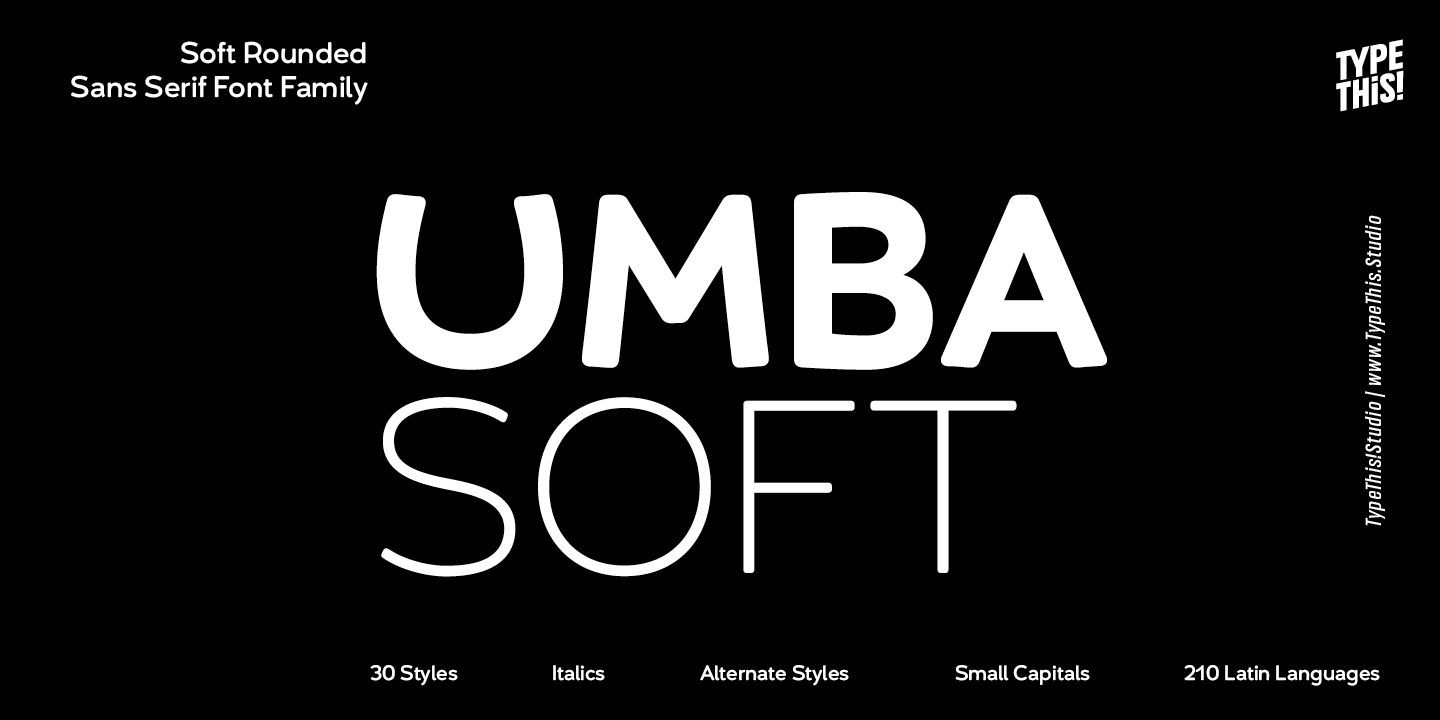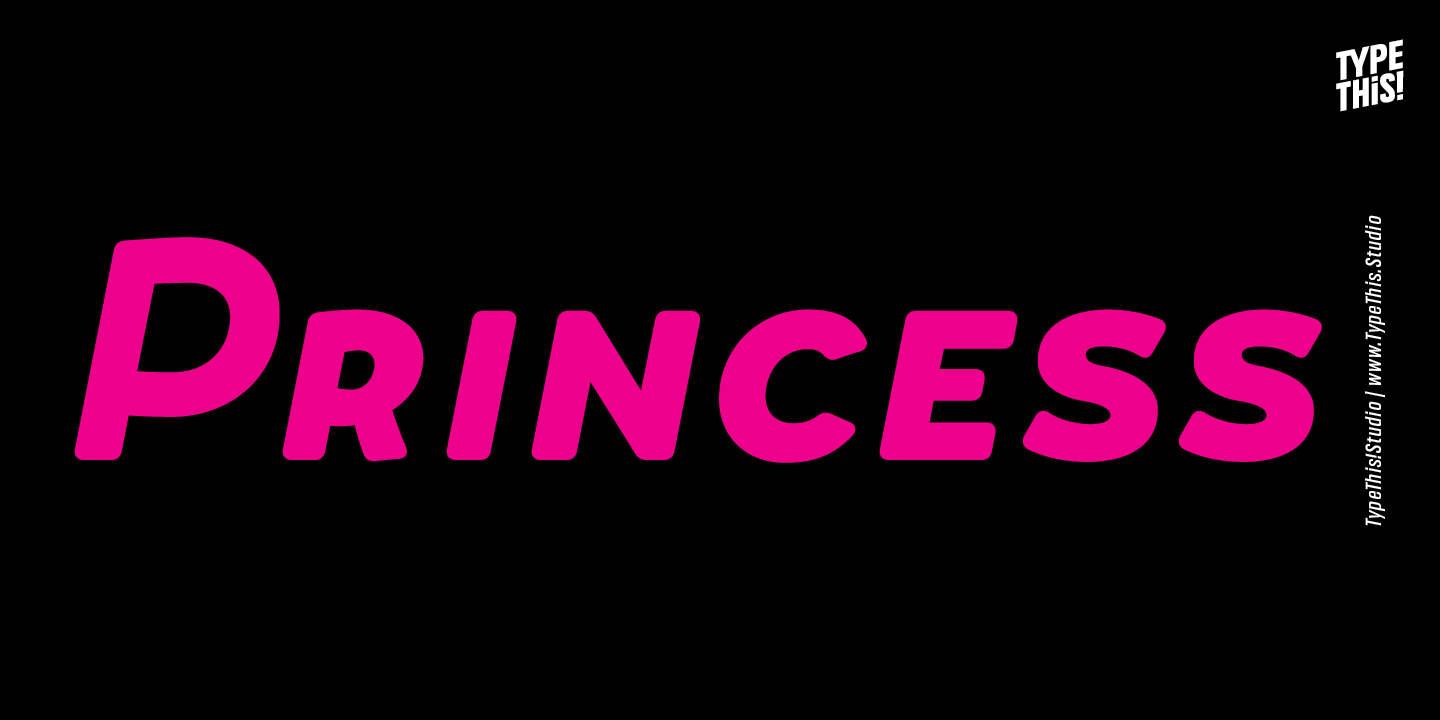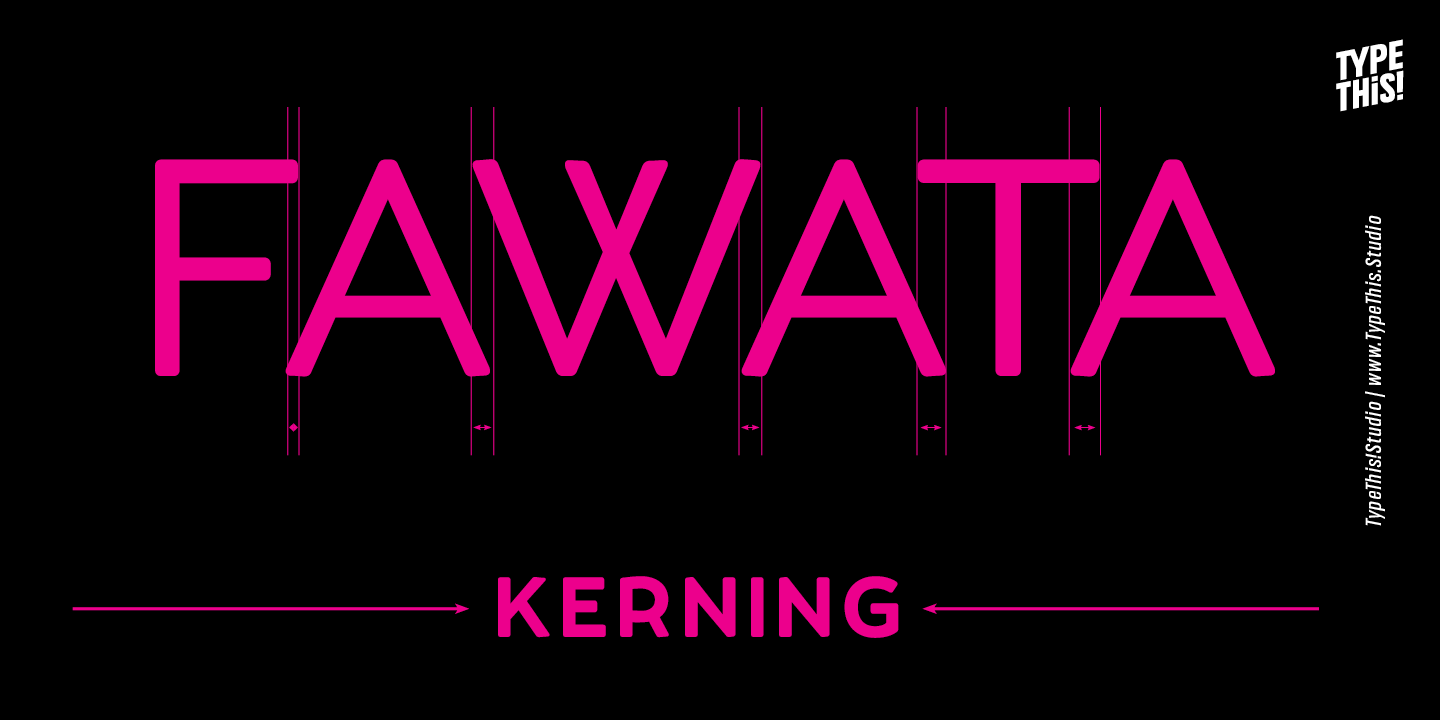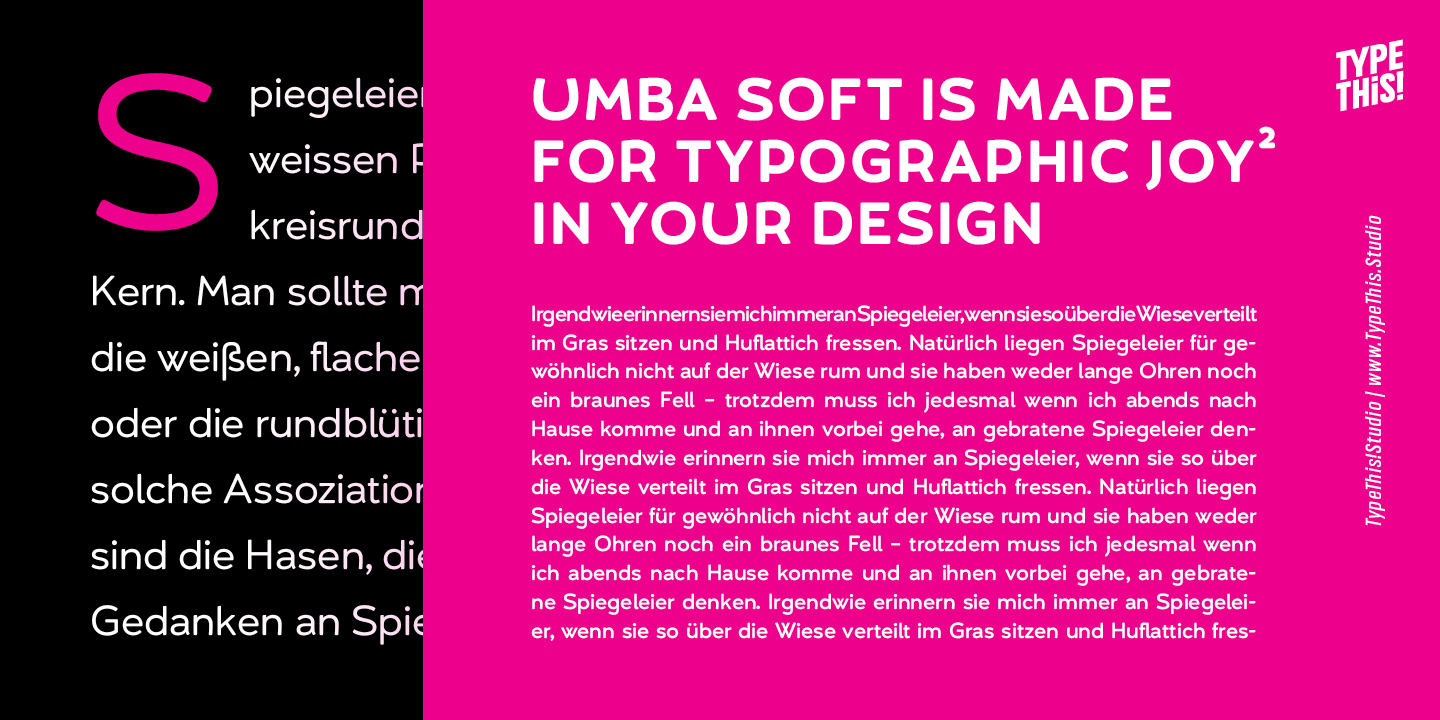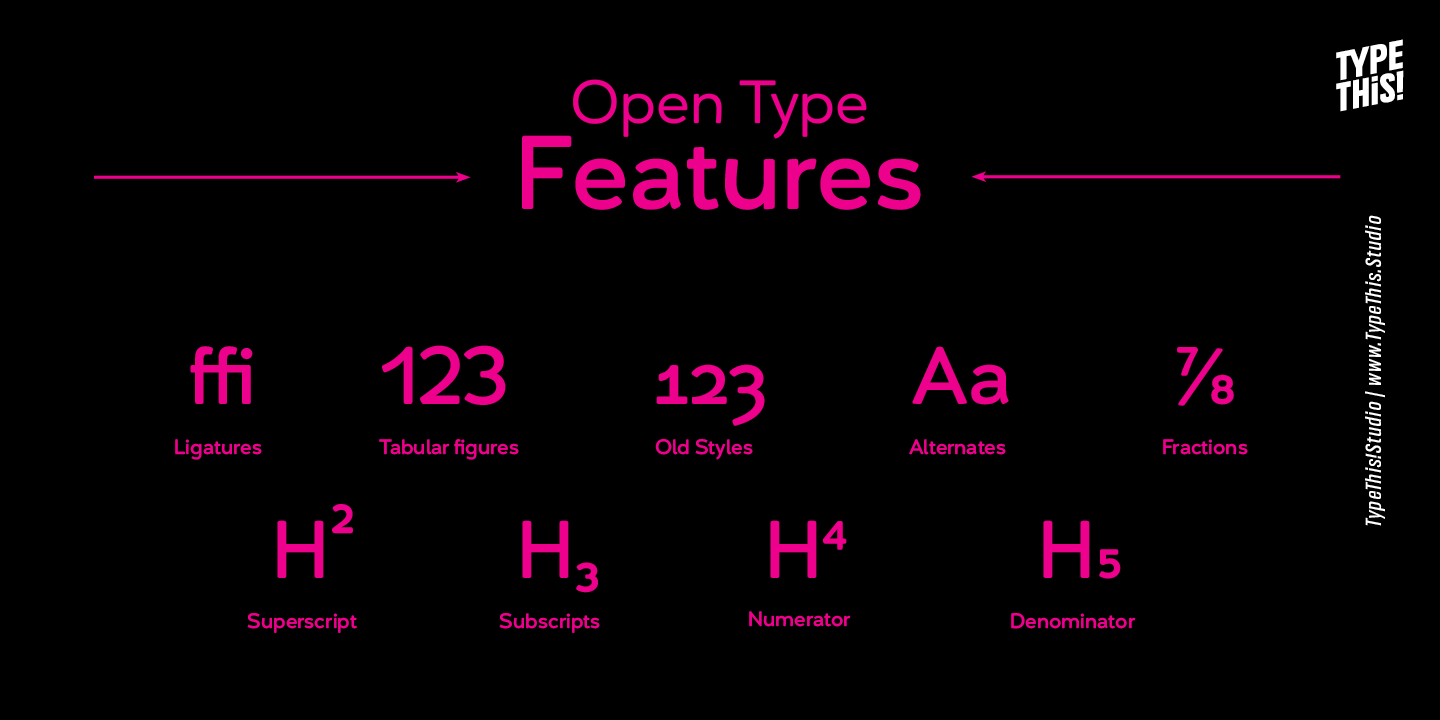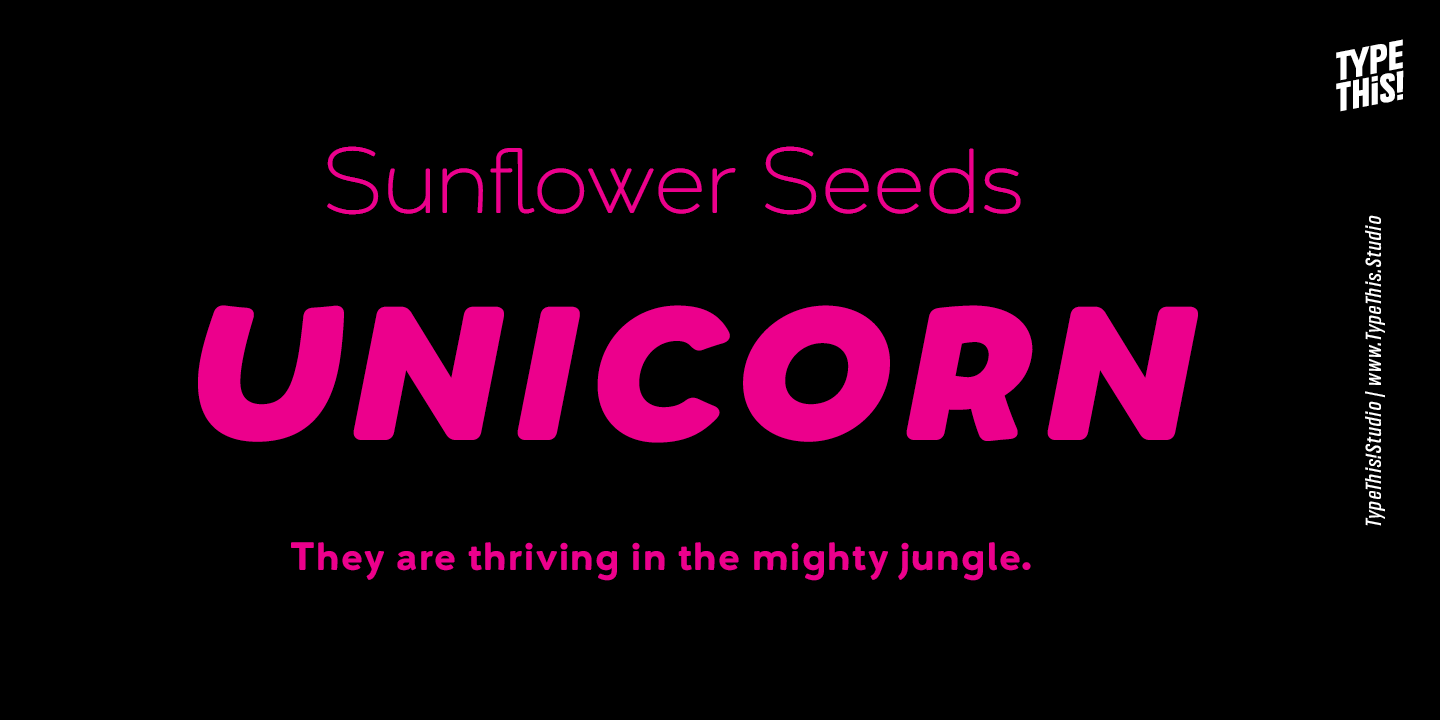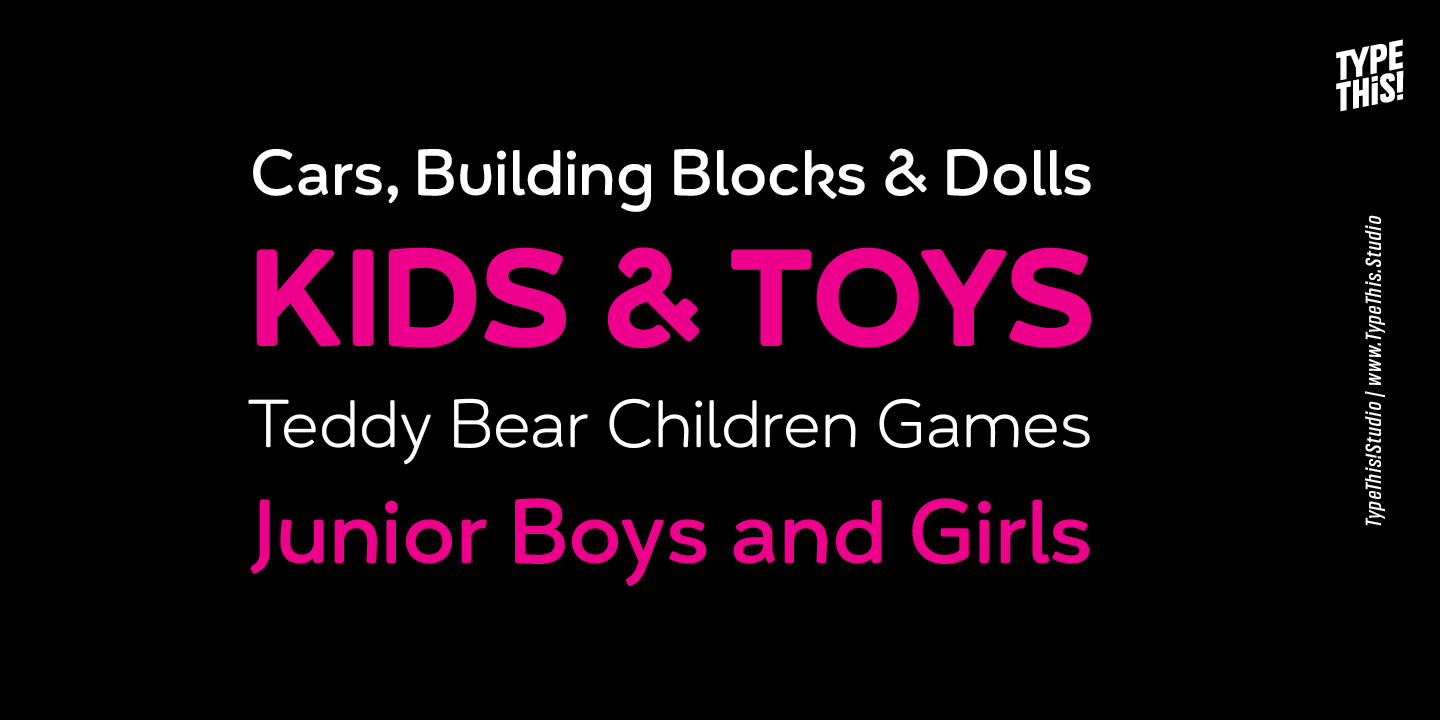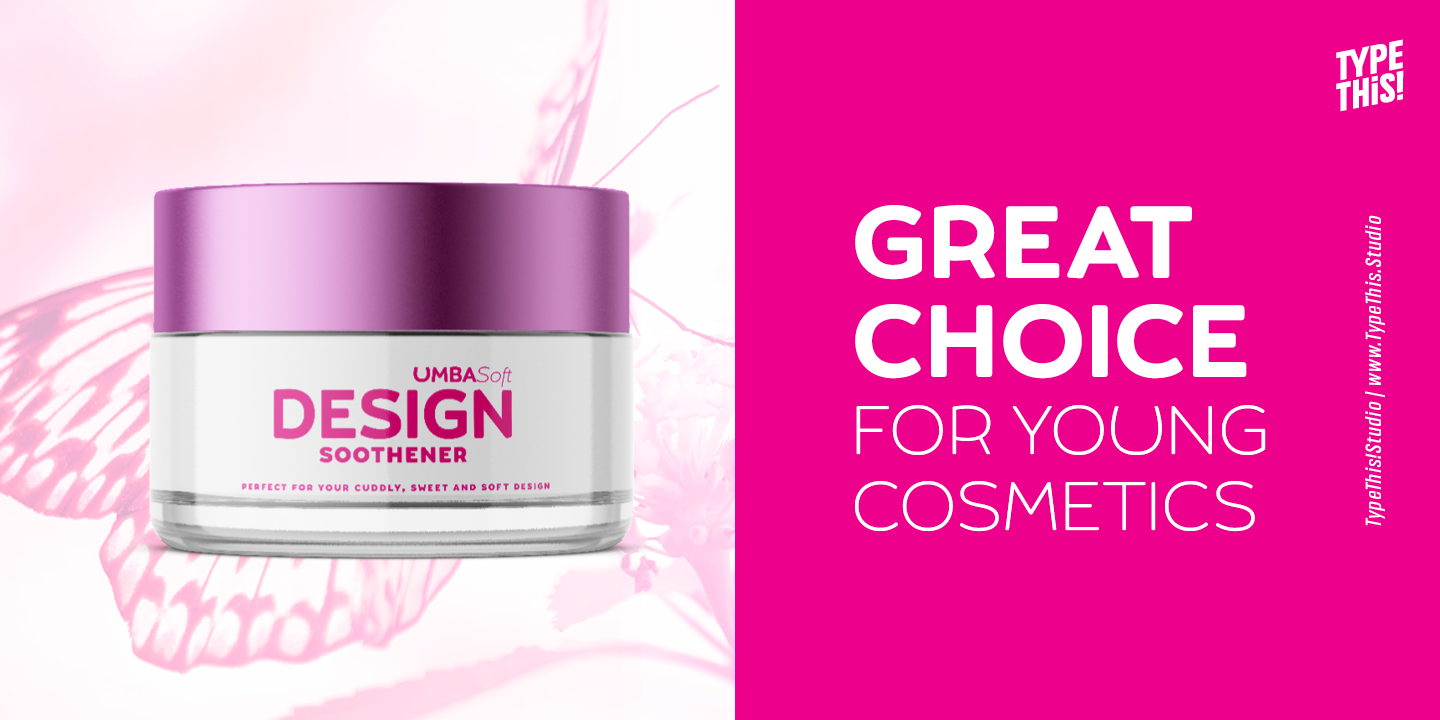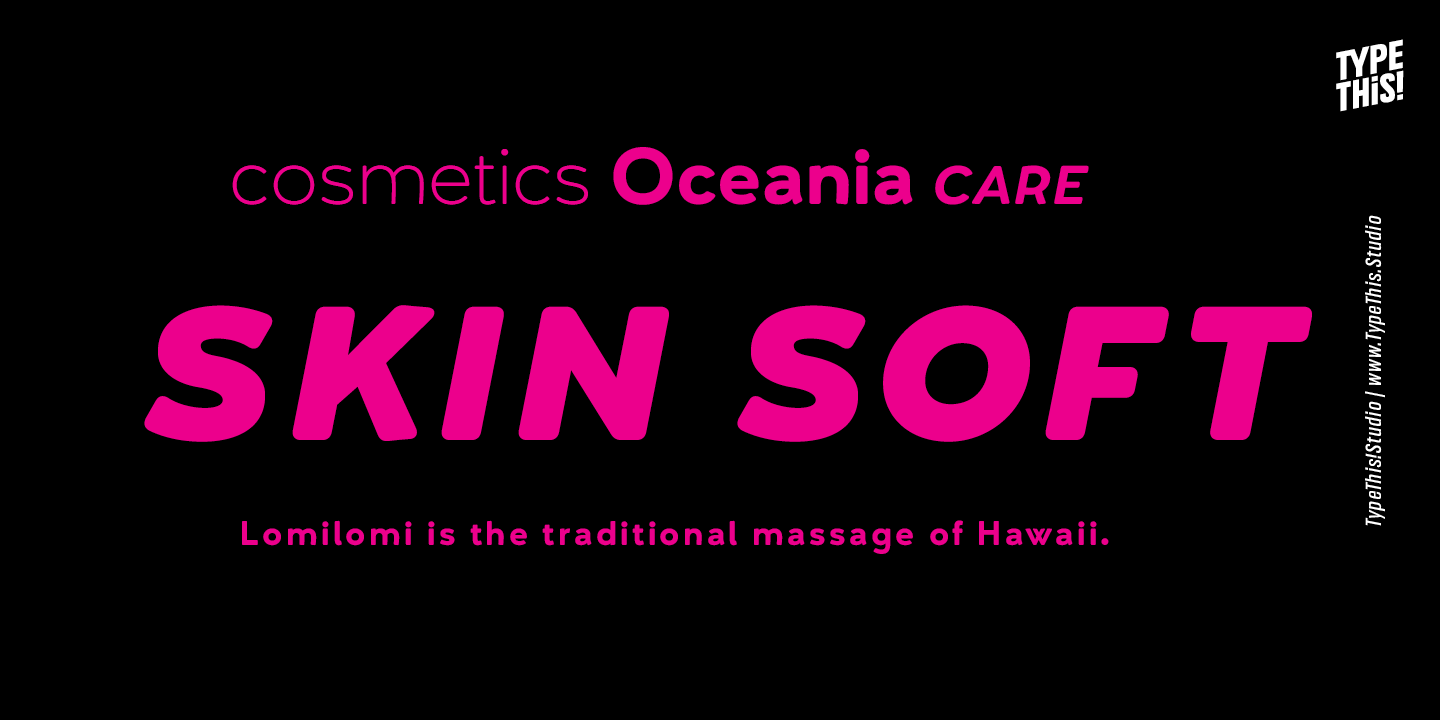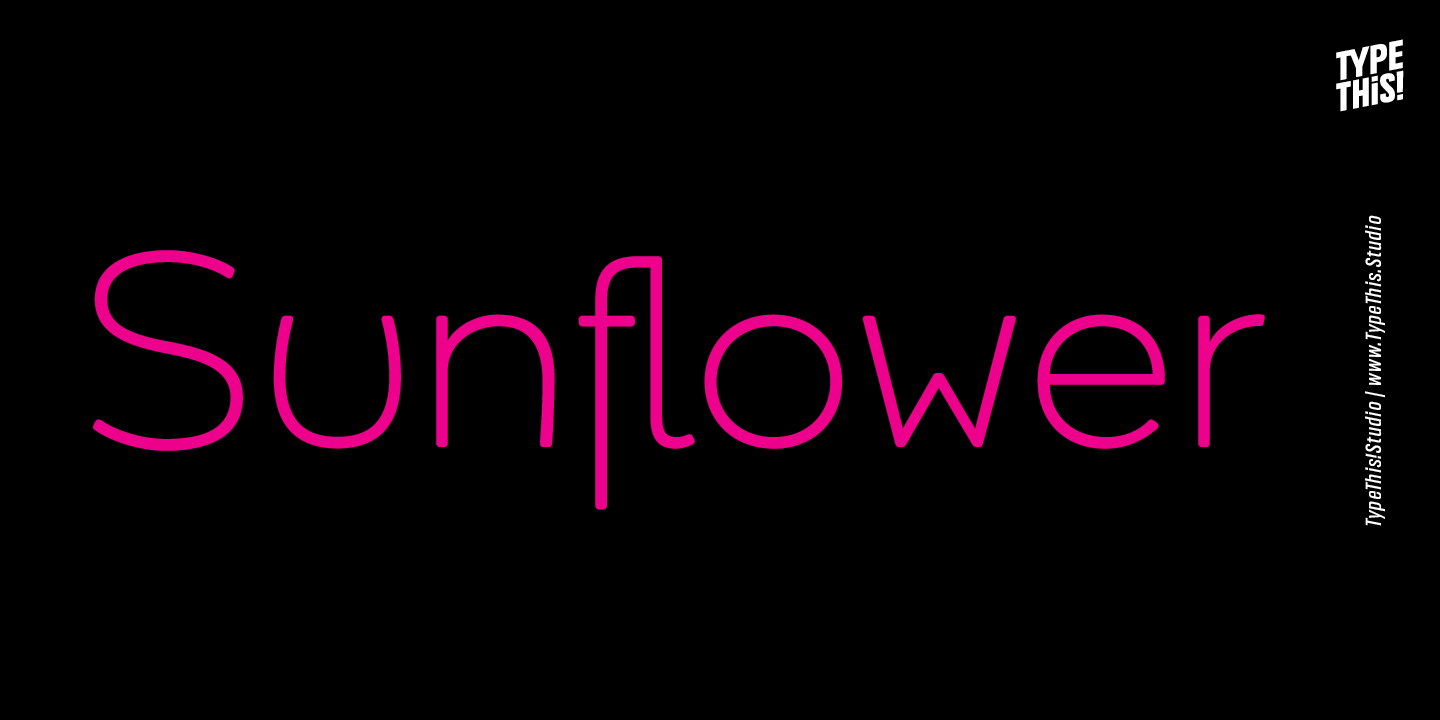
Umba Soft Family (30 fonts)
From Anita Jürgeleit / TypeThis! Studio
The best thing about Umba is its surprise!
UMBA Soft is a mellow sans-serif typeface designed by Anita Jürgeleit. It is fresh, compelling, and very readable. Do you need a type for young cosmetics or other youth-related products? Take a look at Umba Sans! Your creation should be soft and gentle and you need a suitable font? Something that should be cuddly, sweet and soft but a serious type family that covers all your concerns? Umba Soft is your match! Your typographic composition will improve with your new favorite font.
Thirty styles from thin to bold and matching italics helps you to create a highly appealing design product. Alternates and small caps are accessible in seperate styles. There is no need for any special software to use them. The styles will appear in your font menu to make sure you stay aware of the many possibilities that your new font offers.
Old-style Digits, Ligatures, Small Caps, Historical Forms, Alternates, Fractions, Superscript, Subscript